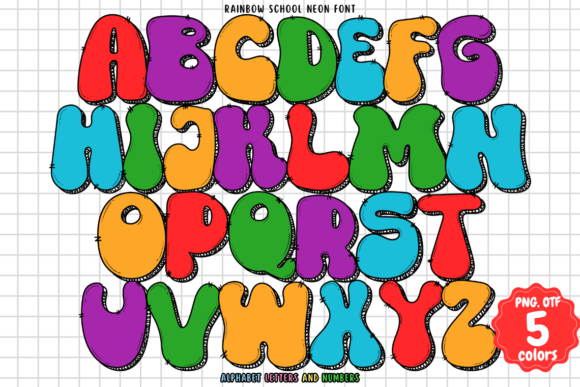
Rainbow School Neon Font: Add a Burst of Color and Creativity to Your Designs
Are you looking for a font that can bring a touch of fun and playfulness to your school-themed designs, educational materials, and creative projects? Look no further than the Rainbow School Neon Font. This vibrant and playful handwritten font is designed to brighten up any project with its lively neon colors and bold, energetic style.
What is Rainbow School Neon Font?
Rainbow School Neon is a unique and eye-catching font that is perfect for adding a splash of joyful energy to your designs. With its bold and playful style, this font is ideal for use in a variety of creative projects, including posters, banners, digital art, and more.
Key Features of Rainbow School Neon Font
- Vibrant and Playful Style: Rainbow School Neon Font features a bold and energetic style that is perfect for adding a touch of fun to your designs.
- Lively Neon Colors: This font features lively neon colors that are sure to brighten up any project.
- Handwritten Style: Rainbow School Neon Font has a handwritten style that gives it a personal and playful touch.
Ideas for Using Rainbow School Neon Font
Rainbow School Neon Font is a versatile font that can be used in a variety of creative projects. Here are a few ideas to get you started:
- School Posters and Banners: Use Rainbow School Neon Font to create eye-catching posters and banners for school events, open houses, and more.
- Educational Materials: Add a touch of fun and playfulness to your educational materials, such as worksheets, activity sheets, and more.
- Digital Art: Use Rainbow School Neon Font to add a burst of color and creativity to your digital art projects.
- Crafting and Scrapbooking: This font is perfect for use in crafting and scrapbooking projects, such as making custom cards, gift tags, and more.
Tips and Tricks for Using Rainbow School Neon Font
Here are a few tips and tricks to help you get the most out of Rainbow School Neon Font:
- Experiment with Different Colors: Don’t be afraid to experiment with different colors and color combinations to find the perfect look for your project.
- Mix and Match Fonts: Rainbow School Neon Font pairs well with a variety of other fonts. Try mixing and matching fonts to create a unique look.
- Use in Combination with Other Design Elements: Use Rainbow School Neon Font in combination with other design elements, such as shapes, icons, and more, to create a visually interesting design.
Rainbow School Neon Font is a vibrant and playful font that is perfect for adding a touch of fun and creativity to your school-themed designs, educational materials, and creative projects. With its lively neon colors and bold, energetic style, this font is sure to brighten up any project. Whether you’re a teacher, designer, or DIY enthusiast, Rainbow School Neon Font is a great addition to your font collection.